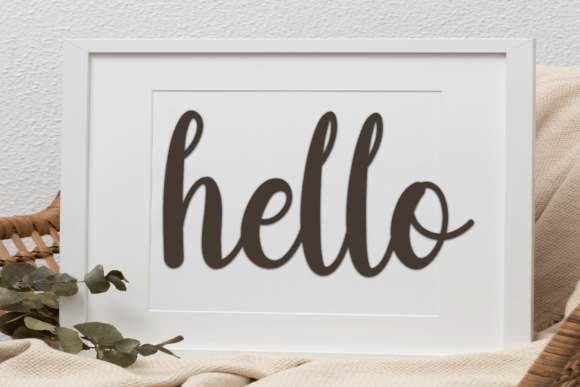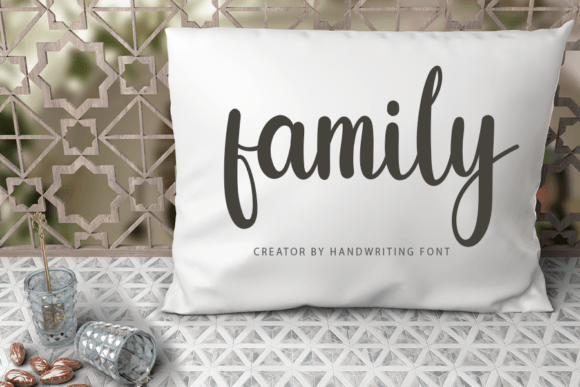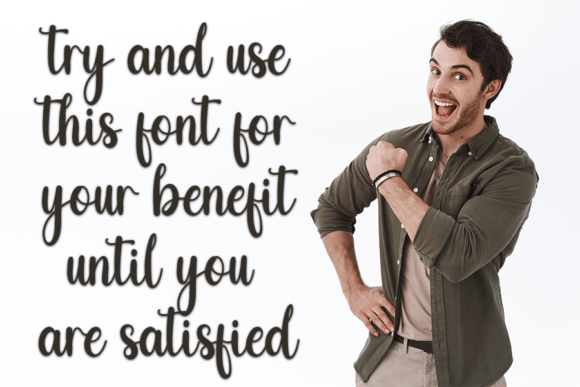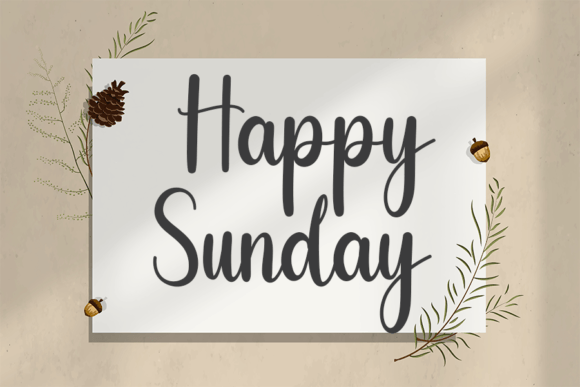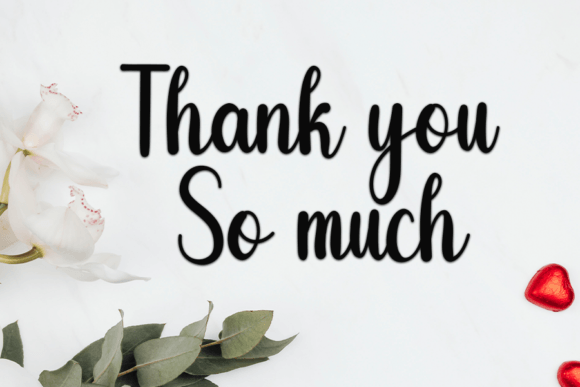
Introducing Handwritten: A Sweet and Beautiful Font for Your Design Projects
Are you looking for a font that can add a touch of luxury and elegance to your design projects? Look no further than Handwritten, a sweet and beautiful handwritten font that is sure to impress. Featuring characters that dance along the baseline, this font is perfect for designers and crafters who want to add a personal touch to their work.
Features of Handwritten Font
Handwritten font has several features that make it stand out from other fonts. Some of its key features include:
- Characters that dance along the baseline: The characters in Handwritten font are designed to dance along the baseline, giving it a playful and whimsical feel.
- Luxury spark: The font has a luxurious feel to it, making it perfect for high-end design projects.
- Sweet and beautiful: The font has a sweet and beautiful appearance that is sure to impress.
- Perfect for design projects: Handwritten font is perfect for a variety of design projects, including branding, packaging, and advertising.
Benefits of Using Handwritten Font
There are several benefits to using Handwritten font in your design projects. Some of the benefits include:
- Adds a personal touch: Handwritten font can add a personal touch to your design projects, making them stand out from the crowd.
- Creates a luxurious feel: The font can create a luxurious feel, making it perfect for high-end design projects.
- Easy to read: Despite its handwritten appearance, Handwritten font is easy to read, making it perfect for body text.
- Versatile: The font is versatile and can be used in a variety of design projects, from branding to packaging.
How to Use Handwritten Font in Your Design Projects
Using Handwritten font in your design projects is easy. Here are a few tips to get you started:
- Use it for headings: Handwritten font is perfect for headings and titles, where you want to make a statement.
- Use it for body text: The font is also easy to read, making it perfect for body text.
- Experiment with different colors: Handwritten font looks great in a variety of colors, so don’t be afraid to experiment.
- Pair it with other fonts: The font can be paired with other fonts to create a unique and interesting look.
Here are a few tips for designers and crafters who want to get the most out of Handwritten font:
- Use it to add a personal touch: Handwritten font is perfect for adding a personal touch to your design projects.
- Experiment with different styles: The font can be used in a variety of styles, from elegant to playful.
- Pay attention to spacing: Make sure to pay attention to spacing when using Handwritten font, as it can affect the overall look of the font.
- Have fun: Most importantly, have fun with Handwritten font! It’s a versatile font that can be used in a variety of creative ways.
Handwritten font is a sweet and beautiful handwritten font that is sure to add a luxury spark to any design project. With its characters that dance along the baseline and luxurious feel, it’s perfect for designers and crafters who want to add a personal touch to their work. Whether you’re looking to create a high-end brand or a playful craft project, Handwritten font is a great choice.